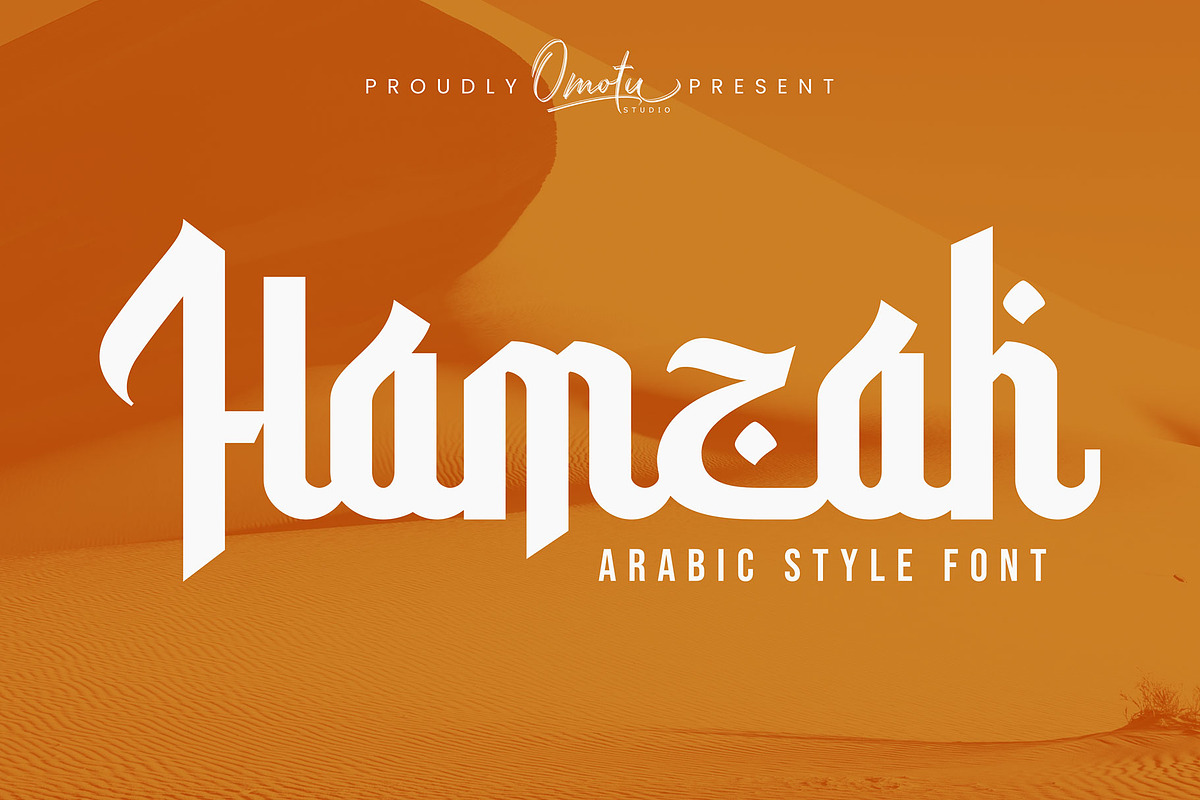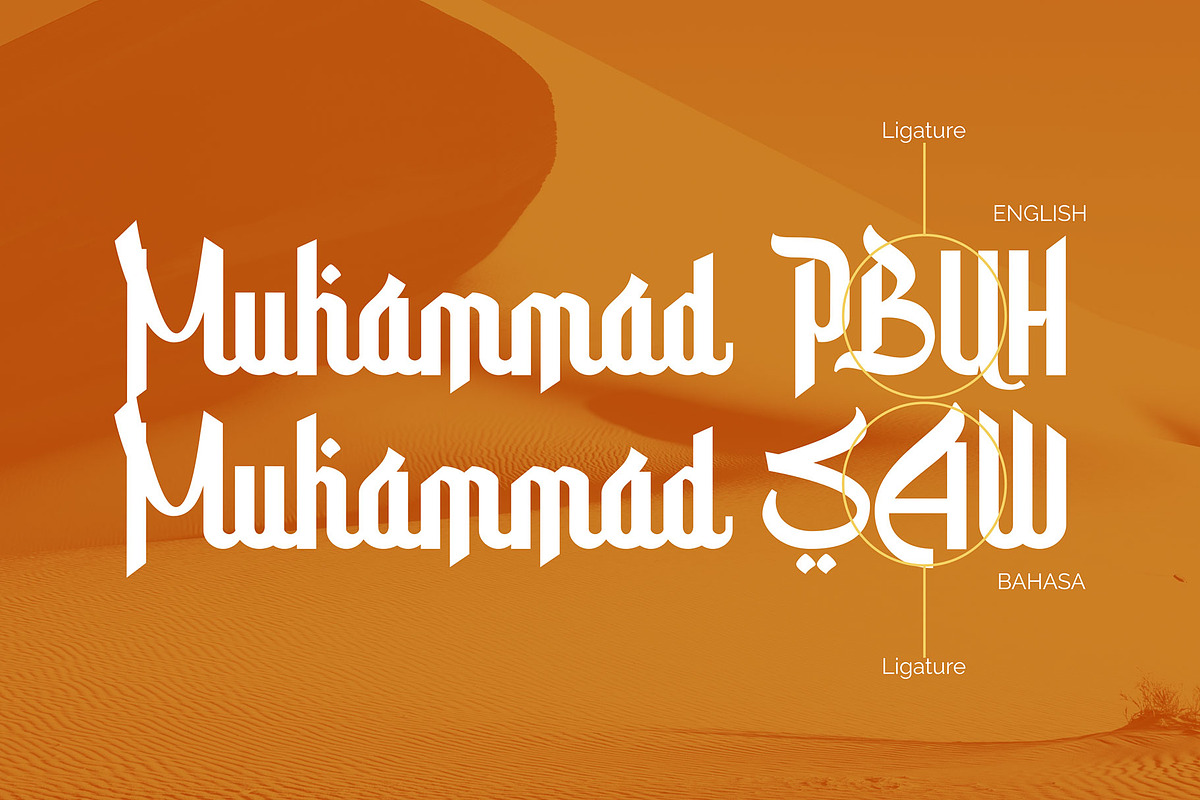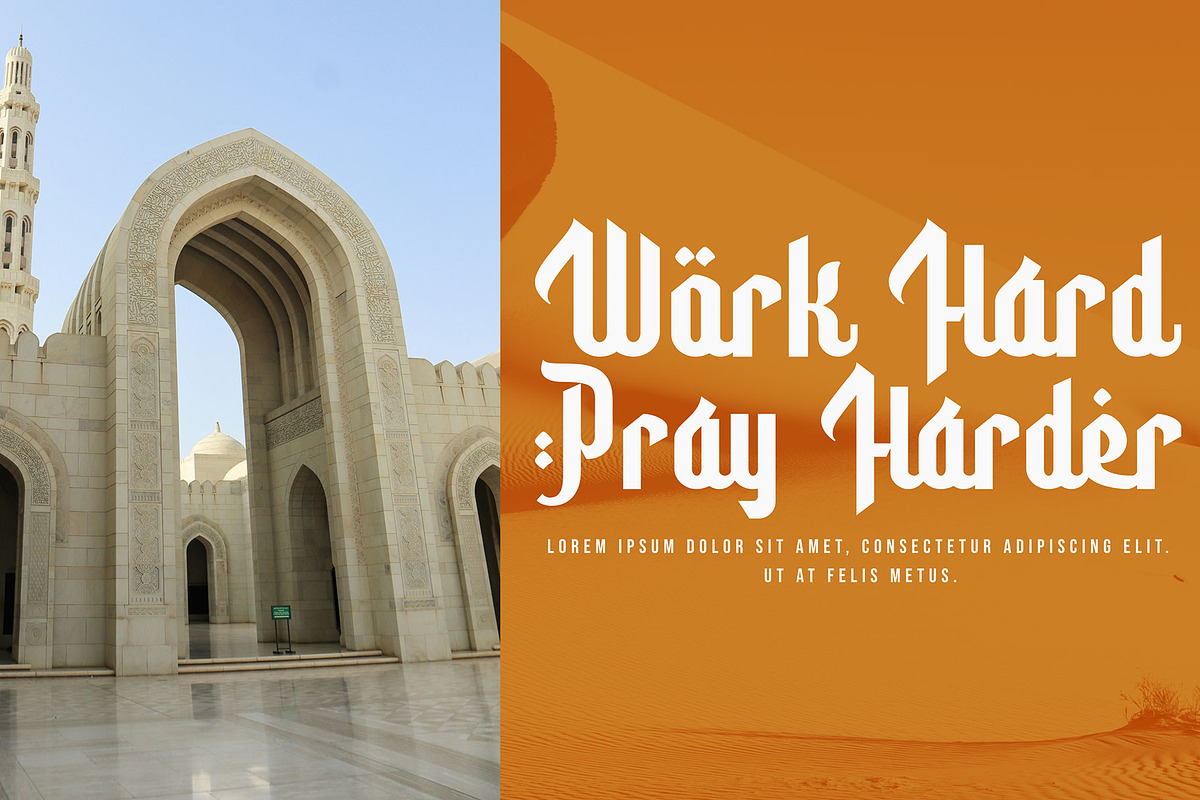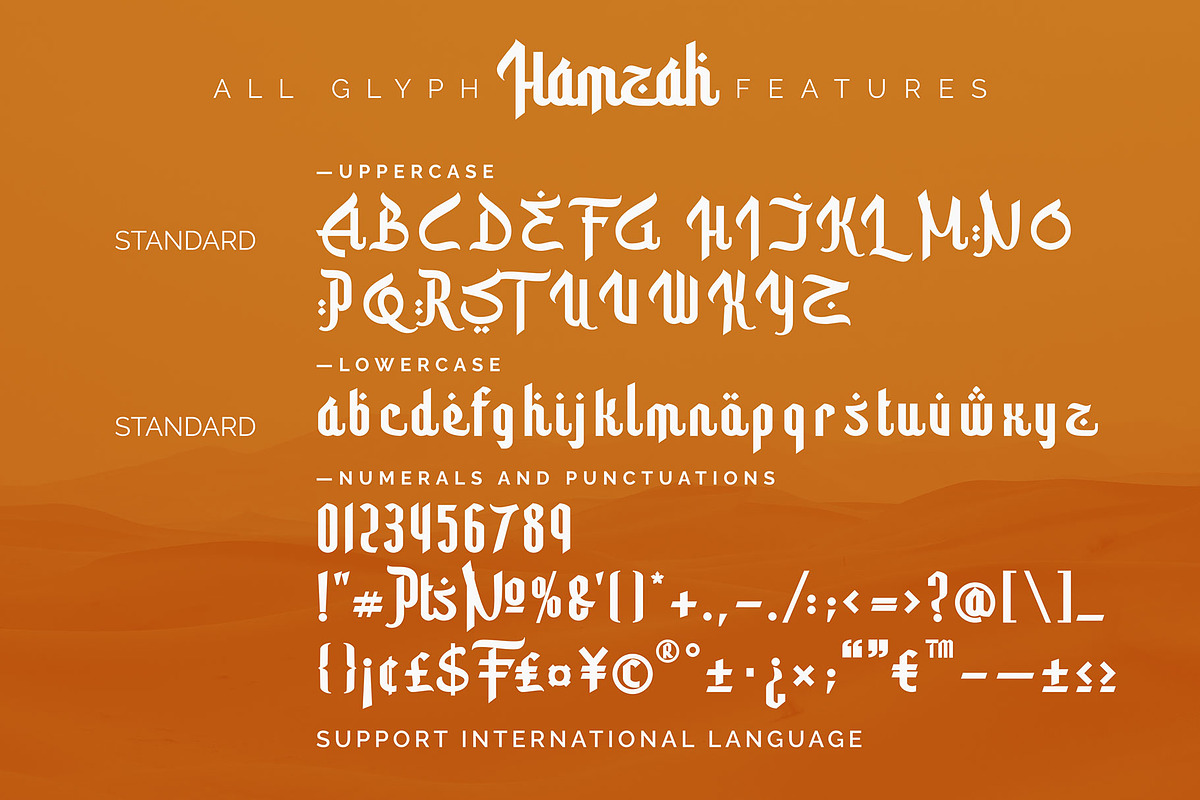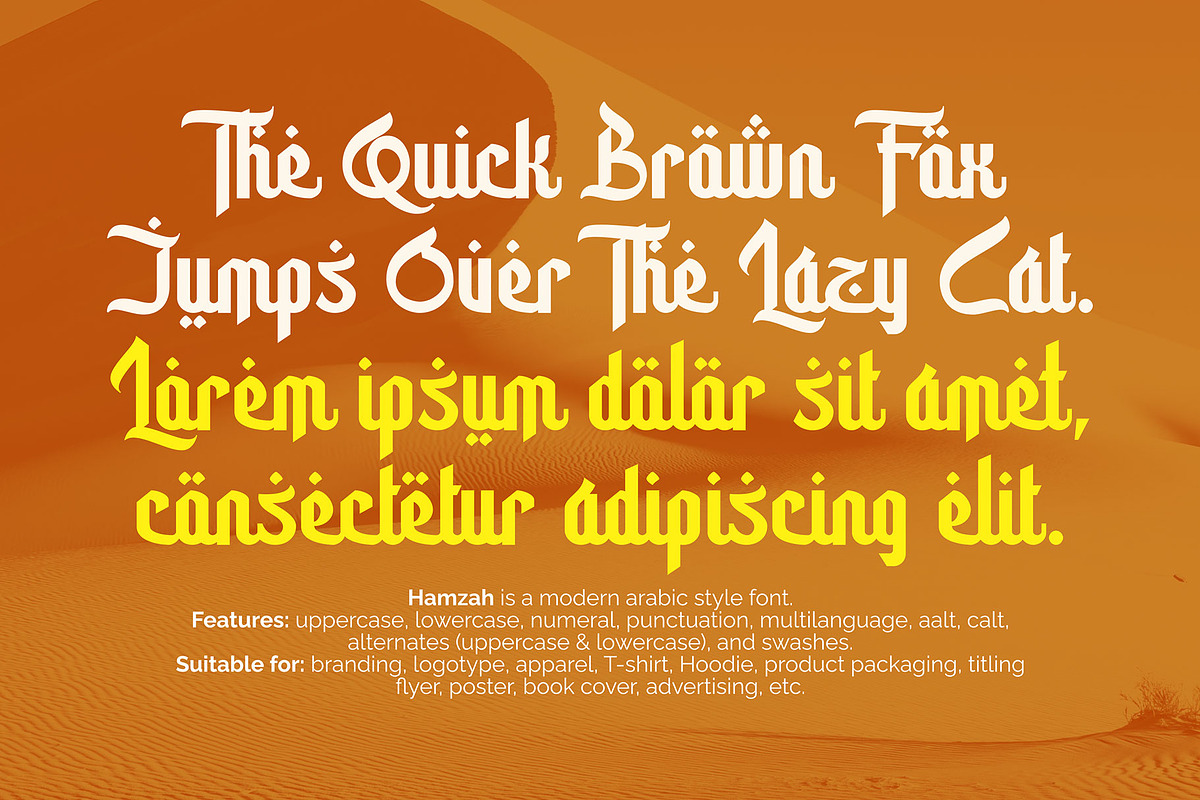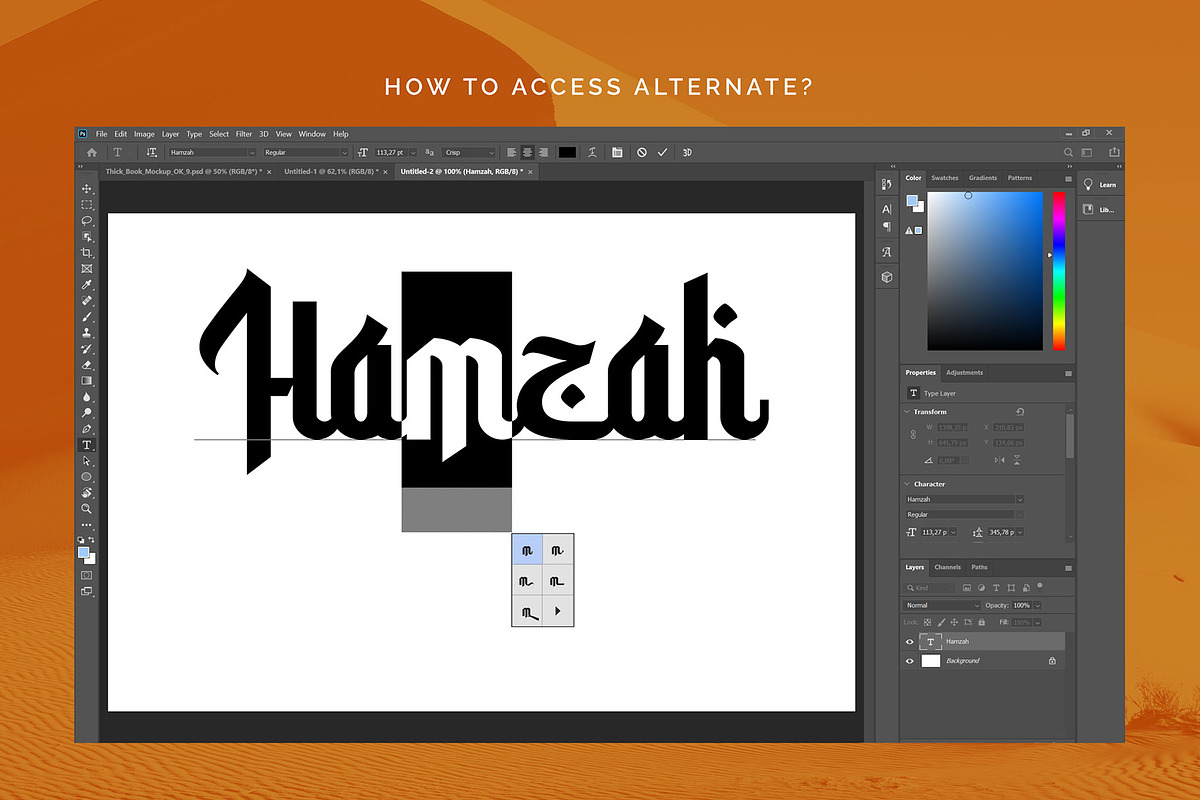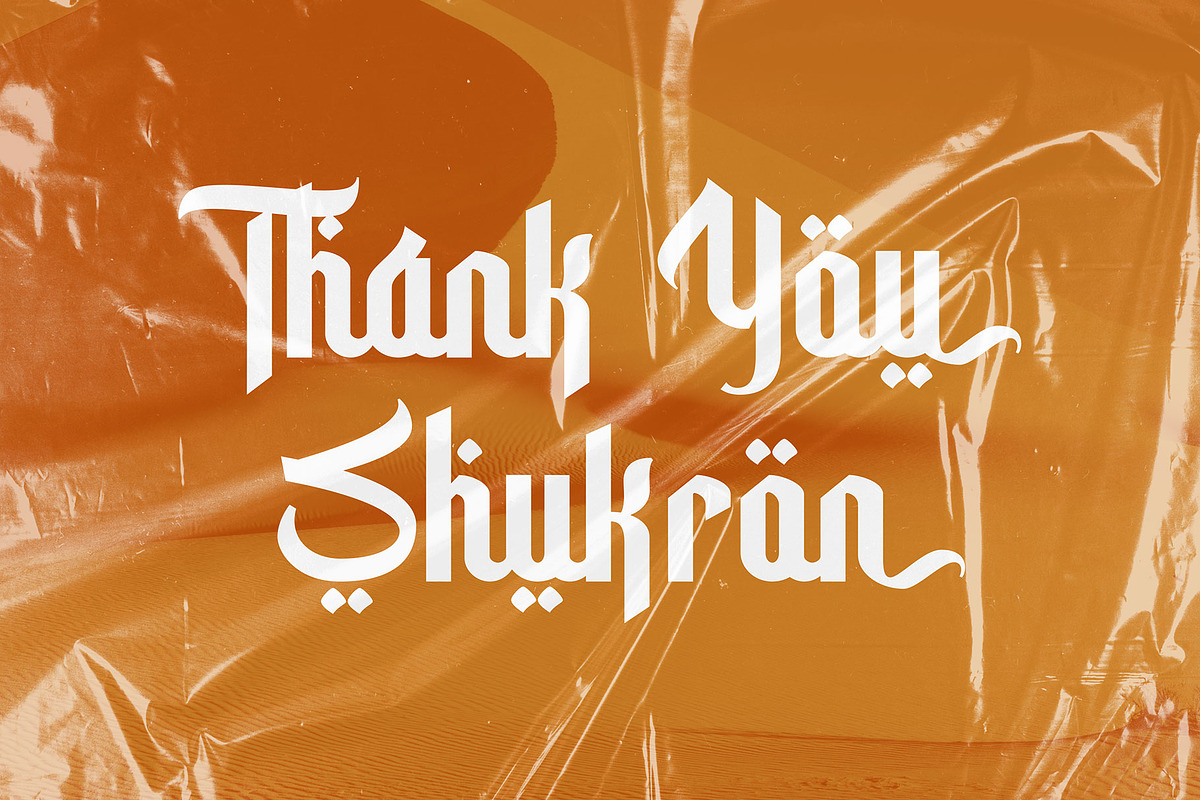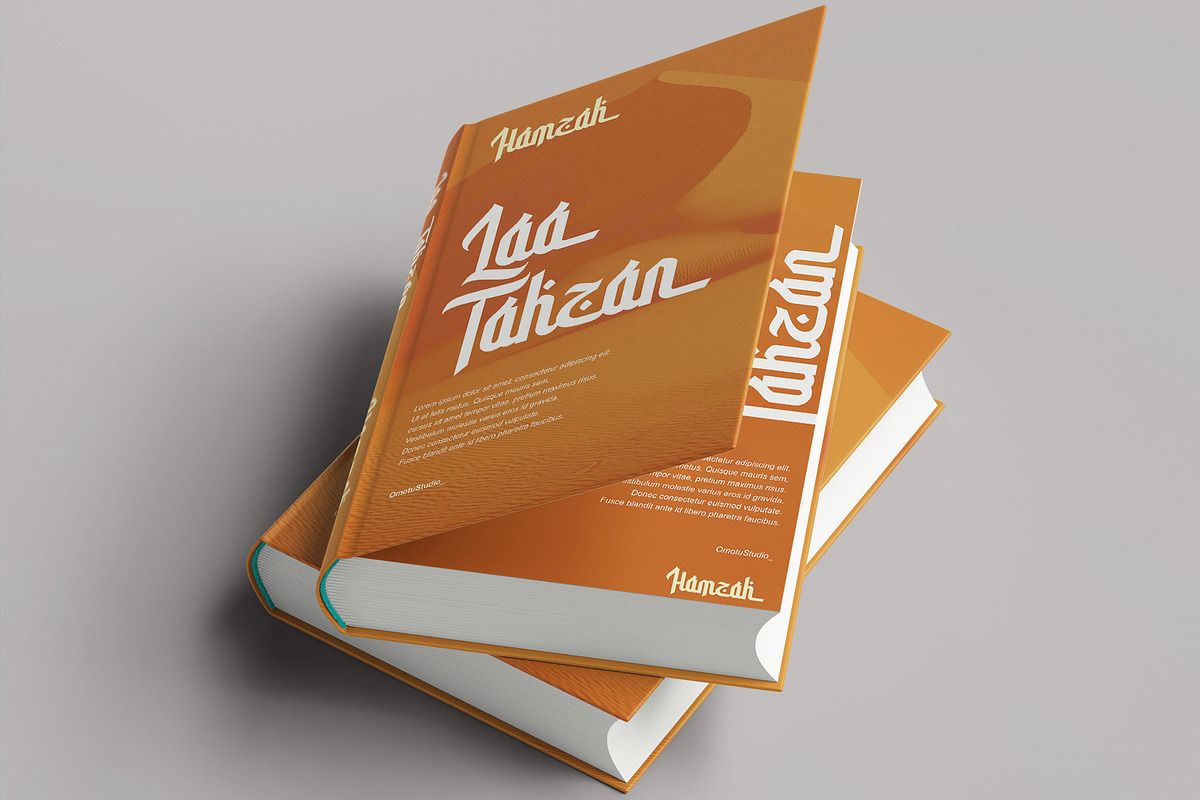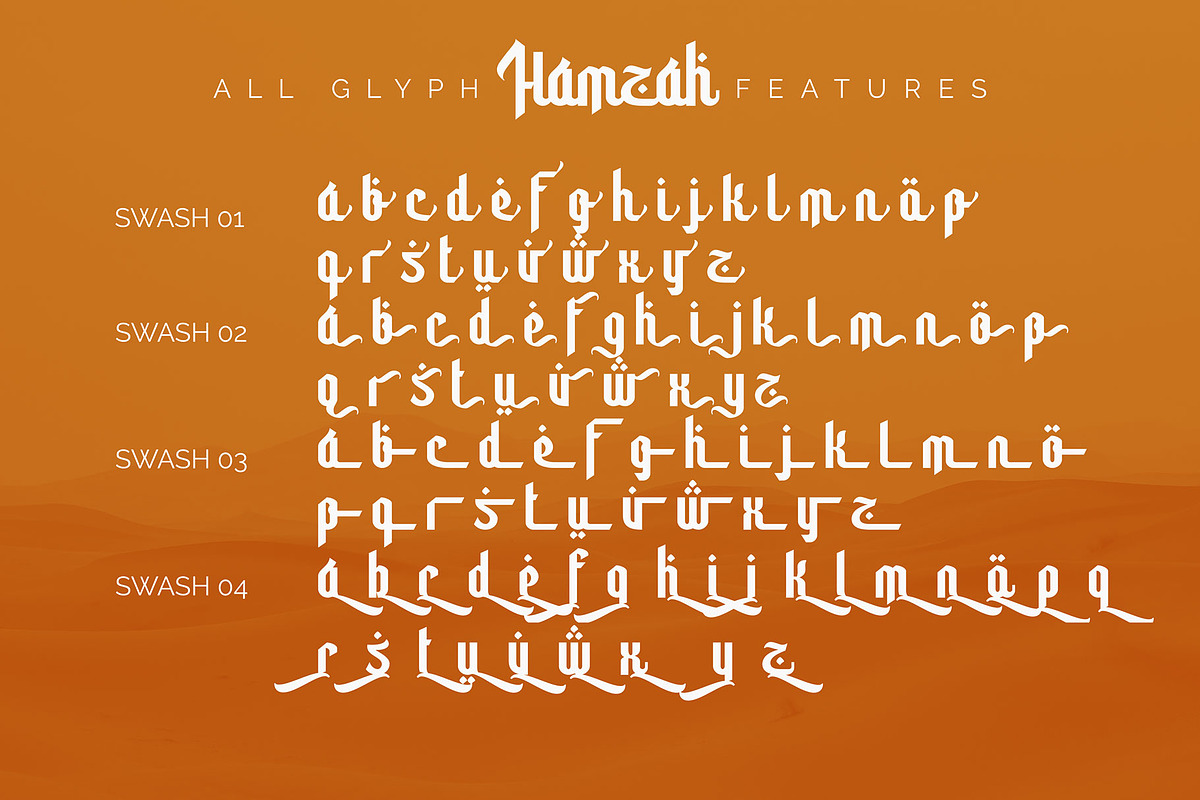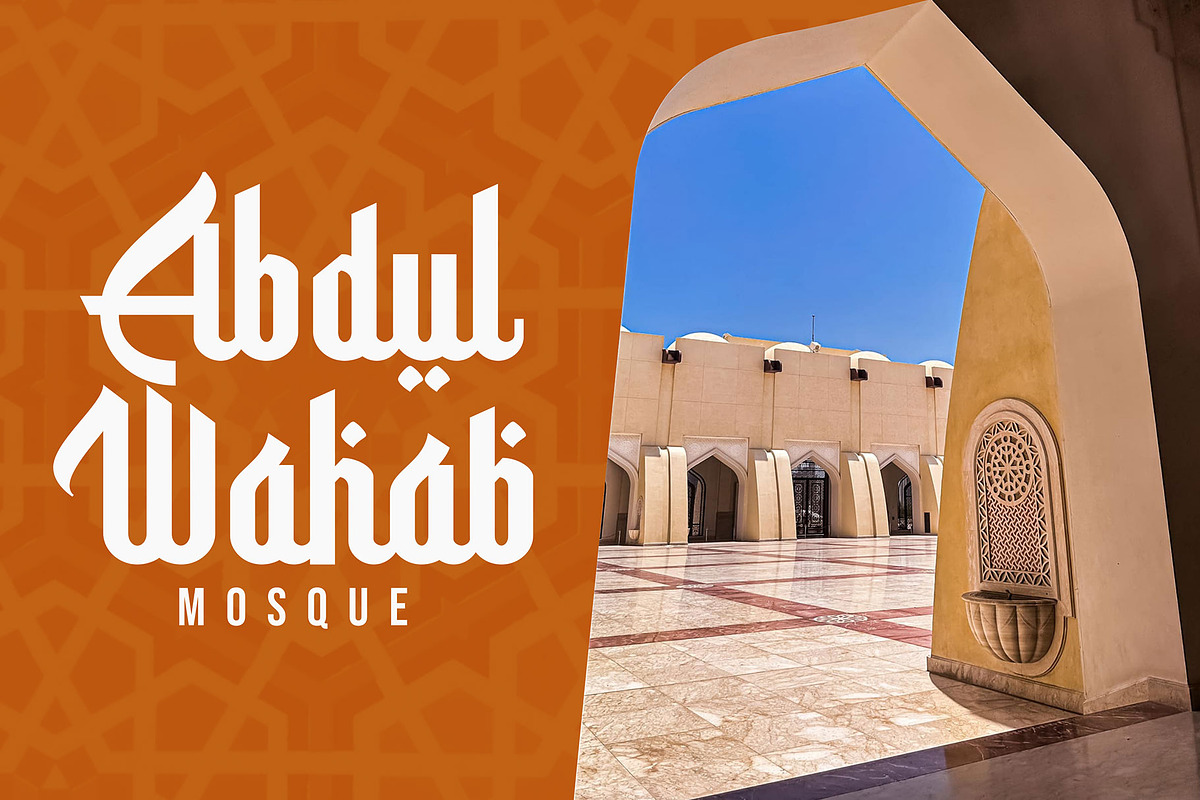
Hamzah
Hamzah is a modern Arabic style font. This font very usable for designing all kind of graphics design related to Islamic Contents. Hamzah font is suitable for heading, branding, logotype, apparel, T-shirt, Hoodie, product packaging, quotes, flyer, poster, book cover, advertising, etc.
- Features: uppercase, lowercase, numeral, punctuation, multilanguage, aalt, calt, alternates (uppercase & lowercase), and swashes.